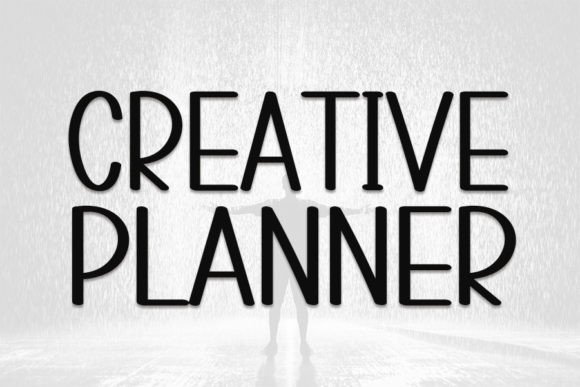
Creative Planner
Finding the right design elements can be challenging, but Creative Planner offers an exceptional collection that elevates your work instantly.